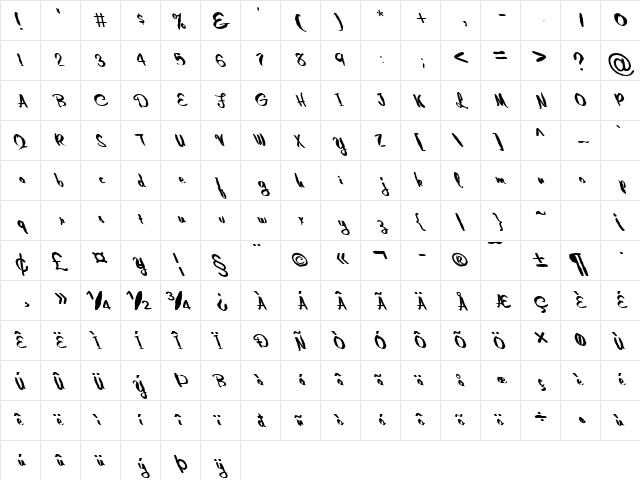
FZ HAND 10 MANGLED LEFTY Normal Font Preview
FZ HAND 10 MANGLED LEFTY Normal
FZ HAND 10 MANGLED LEFTY Normal Font Details
Design Context for FZ HAND 10 MANGLED LEFTY Typeface
FZ HAND 10 MANGLED LEFTY flows with the natural rhythm of handwritten lettering, making it ideal for designs that call for warmth and personal expression.